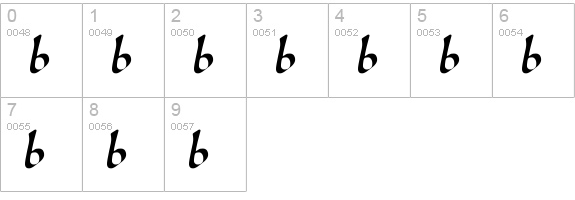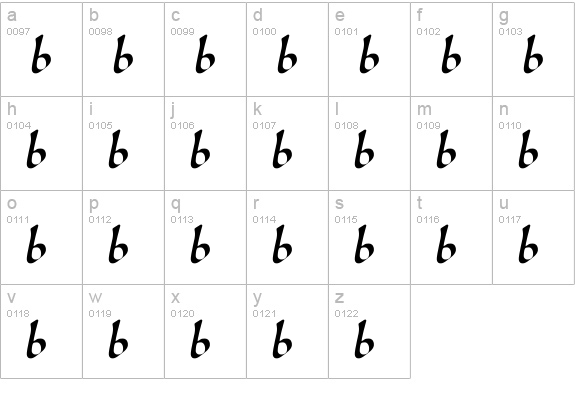
Karolingisch Font Details
Karolingisch font is a stunningly elegant typeface that pays homage to the grandeur and sophistication of the Carolingian script. With its delicately curved serifs, graceful letterforms, and impeccable attention to detail, this font exudes a timeless beauty that captures the essence of medieval calligraphy. Its flowing lines and meticulously crafted curves make Karolingisch font a perfect choice for projects that require a touch of classic elegance. Whether it's a wedding invitation, a logo design, or a book cover, this font will instantly elevate any design to the realm of sophistication and refinement. What sets Karolingisch font apart is not only its visual appeal but also its versatility. It effortlessly adapts to both formal and informal contexts, making it an ideal choice for a wide range of applications. From formal documents and certificates to casual greeting cards and blog headers, this font seamlessly blends tradition with modernity. And the best part? Karolingisch font is available for free! Yes, you read that right. You can download this exquisite font without spending a dime at FontsMarket.com. Now, you have the opportunity to add a touch of timeless elegance to your designs without breaking the bank. So, why wait? Embrace the beauty of Karolingisch font and let its charm enchant your creations. Download it now from FontsMarket.com and unlock a world of possibilities for your design projects.